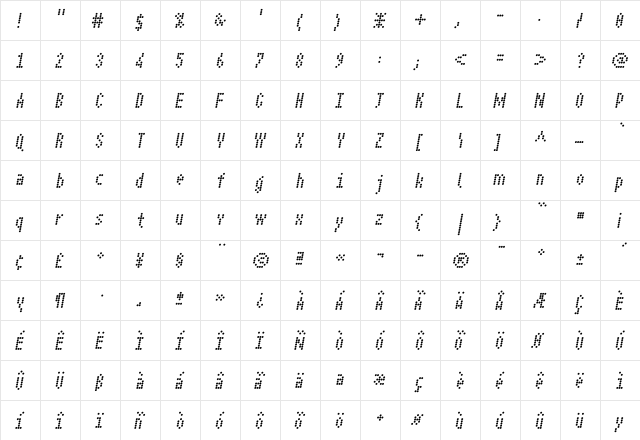
IDE Bold Italic
Design Context for IDE Typeface
IDE is a composed and adaptable typeface that performs quietly and consistently across a wide range of design contexts. The dynamic lean of this cut emphasises speed and emphasis in any layout. The heavy weight commands attention and anchors typographic hierarchies.
Pro Tip: Use IDE for emphasis, pull quotes, and subheadings where its slanted energy can add rhythm to the layout.